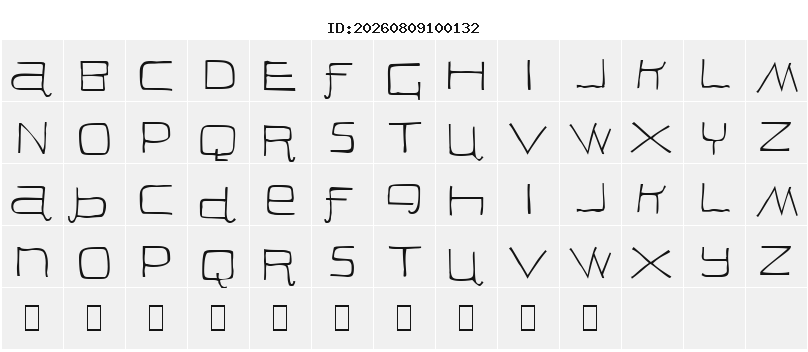
Peon Preview
• Font Name: Peon
• Full Font Name: Peon
About Peon.ttf
Peon.ttf is a modern, elegant sans-serif font designed for ultimate readability and visual harmony. Perfect for branding, headlines, web design, and print materials.